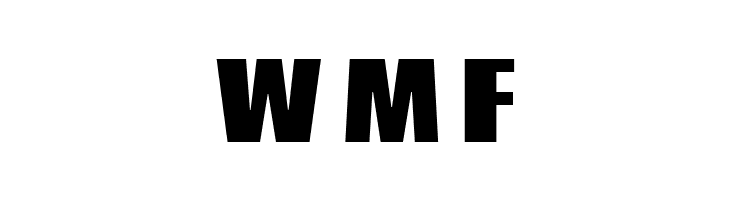
A bold, angular, and expressive handwritten-style font.
A bold, impactful font with thick, uniform strokes and a modern, professional appearance.
A bold, impactful typeface with strong, uniform characters.
A bold, modern font with thick, uniform strokes for strong visual impact.
A modern, geometric sans-serif font with balanced proportions.
A pixelated, retro-style font with a digital, grid-like appearance.
A bold, playful font with circular, cut-out designs ideal for creative projects.
A classic serif font with balanced strokes and elegant design.
A barcode-inspired font with a retro, digital aesthetic.
A barcode-style font with vertical line characters for a tech-inspired look.
A medieval gothic font with sharp serifs and dramatic contrast.
Bold, uppercase font with a modern and impactful style.
An ornate blackletter font with intricate detailing and a classic, formal style.
A classic serif font with elegant curves and a vintage touch.
A bold, 3D italic font with a textured, industrial look.
A bold, 3D font with a rugged, distressed texture and vintage appeal.
A bold, rugged, and textured font with a distressed appearance.
A bold, condensed, and italic font with a distressed, grunge aesthetic.
A bold, distressed font with an expanded width and vintage appeal.
A bold, expanded, italic font with a rugged, textured appearance.
A bold, italicized font with a distressed texture for a rugged look.
A bold, textured font with a rugged, distressed appearance.
A bold, distressed font with a rugged, vintage look.
A bold, distressed font with a rugged, vintage appearance.
A bold, italicized font with a distressed, high-contrast style.
A bold, dynamic font with a slight slant and strong presence.
A dynamic and flowing font combining script and serif elements.
A bold, rounded font with a modern and friendly style.
A bold, rounded, and oblique font with a modern and dynamic style.
A bold, textured font with a rope-like appearance, perfect for playful designs.
A modern, rounded typeface with clean lines and balanced spacing.